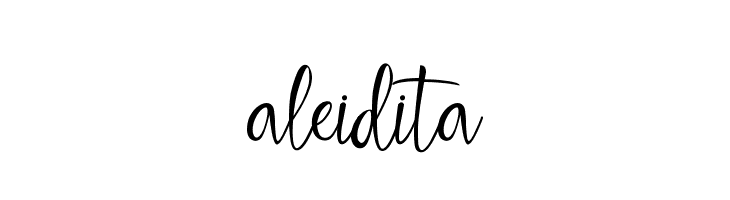
A sleek, modern font with tall, narrow characters and consistent stroke width.
A playful, bold script font with a handwritten style.
A bold, geometric font with square and rectangular shapes, enclosed in thick outlines.
A playful, narrow font with consistent strokes and a modern, friendly style.
Casual handwritten font with a playful style.
A playful, casual handwritten font with fluid, slightly irregular strokes.
A bold, decorative font with sharp, angular designs and intricate detailing.
A clean, modern sans-serif font with a condensed style.
A bold, condensed sans-serif font with a modern and impactful style.
Bold, condensed, and italic with high contrast, perfect for striking headlines.
A bold, condensed sans-serif font with a modern and clean look.
A modern, condensed sans-serif font with an extra light weight and minimal contrast.
A sleek, modern sans-serif font with a condensed, extra light, and italic style.
A sleek, modern sans-serif font with a condensed and italicized style.
A modern, condensed sans-serif font with a light weight and low contrast.
A sleek, modern sans-serif font with a light, italic, and condensed style.
A modern, condensed sans-serif font with medium weight and low contrast.
A modern, sans-serif, condensed italic font with medium weight.
A modern, bold, and condensed sans-serif font with clean lines.
A modern, thin, and condensed sans-serif font with clean lines.
A playful, casual handwritten font with irregular strokes and an organic flow.
A decorative script font with elegant swirls and flourishes.
A playful, handwritten font with a casual and informal style.
A bold, dynamic font with sweeping strokes and a modern calligraphic style.
A modern, tall, and narrow sans-serif font with consistent stroke width.
A modern, italic font with a sleek, dynamic style.
A playful, handwritten font with dynamic strokes and a whimsical style.
A playful and elegant script font with a handwritten, cursive style.
A bold, playful font with rounded, thick strokes and a whimsical style.
A playful, bold, and rounded font with a hand-drawn feel.
A lively, flowing script font with elegant loops and a natural handwriting style.
An elegant, flowing script font with a handwritten style.